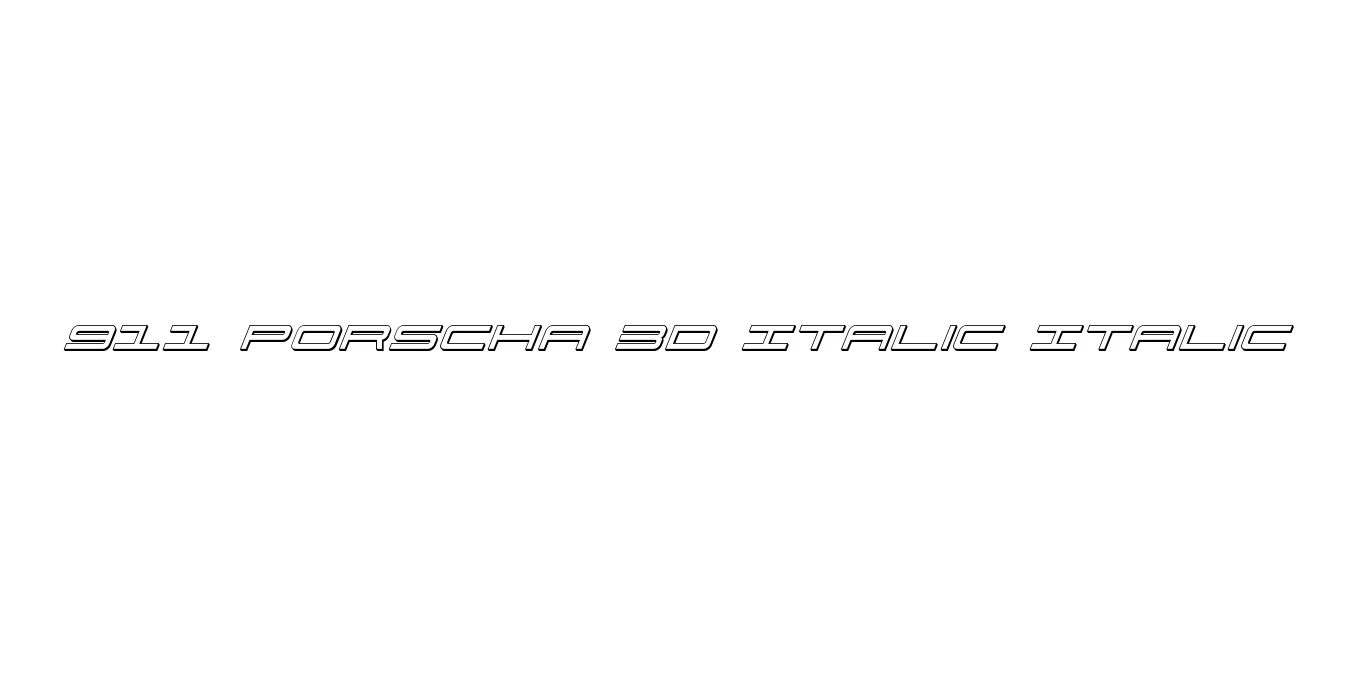
911 Porscha 3D Italic Italic
Designed by Iconian Fonts (Dan Zadorozny)
| Font Name | 911 Porscha 3D Italic |
| Category | Display / Techno |
| Designer | Iconian Fonts (Dan Zadorozny) |
911 Porscha 3D Italic Italic is a high-octane display typeface heavily inspired by the iconic branding of the Porsche automotive manufacturer. Designed to convey a sense of speed, precision, and luxury, this font features wide, geometric letterforms that are synonymous with high-performance engineering and futuristic aesthetics. The specific 3D variant adds layers of depth, making the characters appear as if they are machined from solid metal or extruded from a high-speed surface.
As part of the broader 911 Porscha family, the 3D Italic iteration emphasizes motion through its aggressive slant and perspective-based shadows. It is a favorite among designers working in the automotive and gaming industries who need a typeface that commands attention on posters, vehicle wraps, and user interfaces. Its bold presence ensures that titles and headings remain legible while projecting an aura of power and velocity.
911 Porscha 3D Italic Italic Best Uses
Ideal for car club logos, dealership signage, and vehicle performance branding.
Perfect for race titles, HUD elements, and menu systems in driving simulators.
Great for high-speed sports event posters, banners, and digital graphics.
Excellent for bold t-shirt designs and tech-oriented apparel branding.